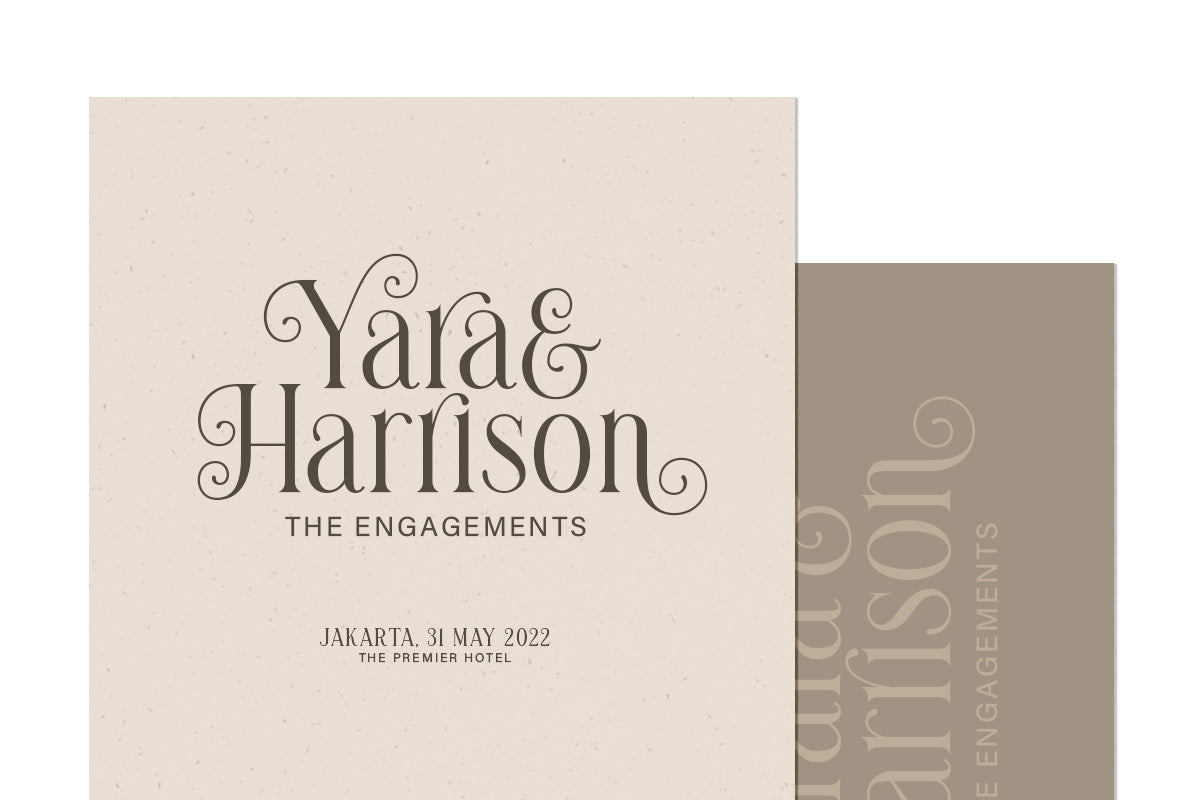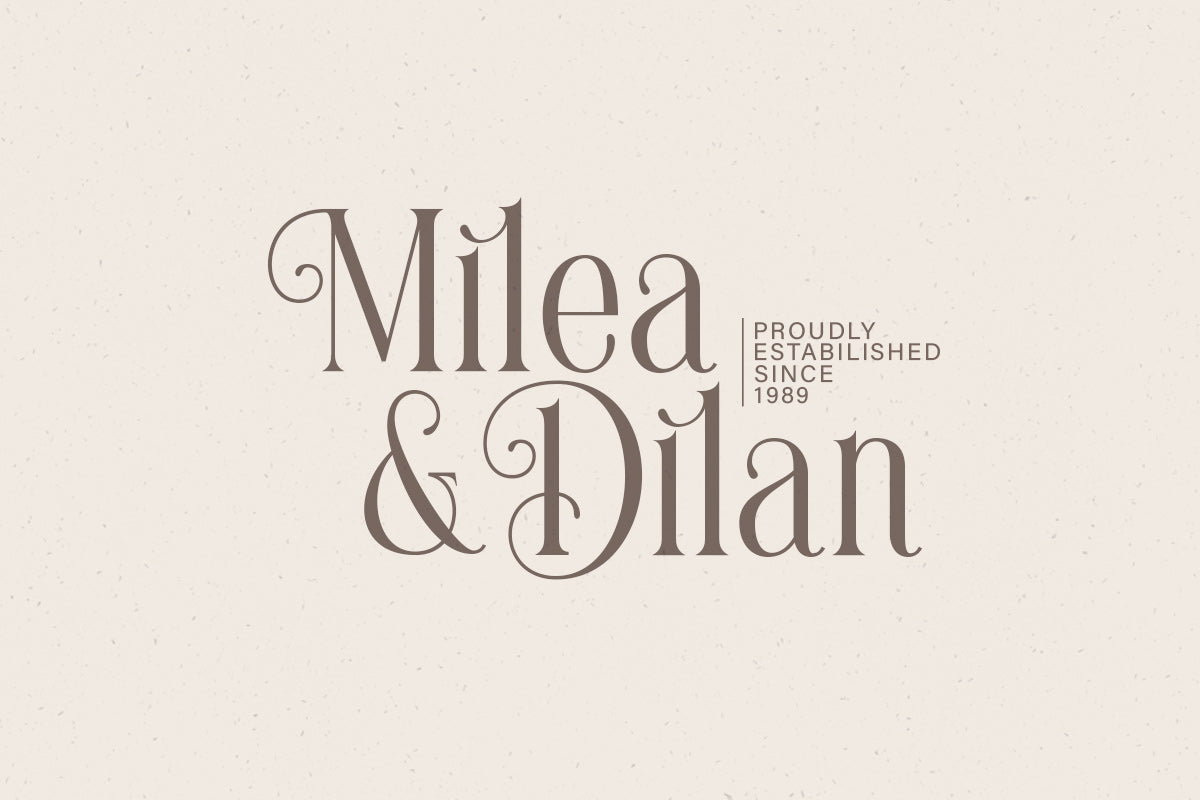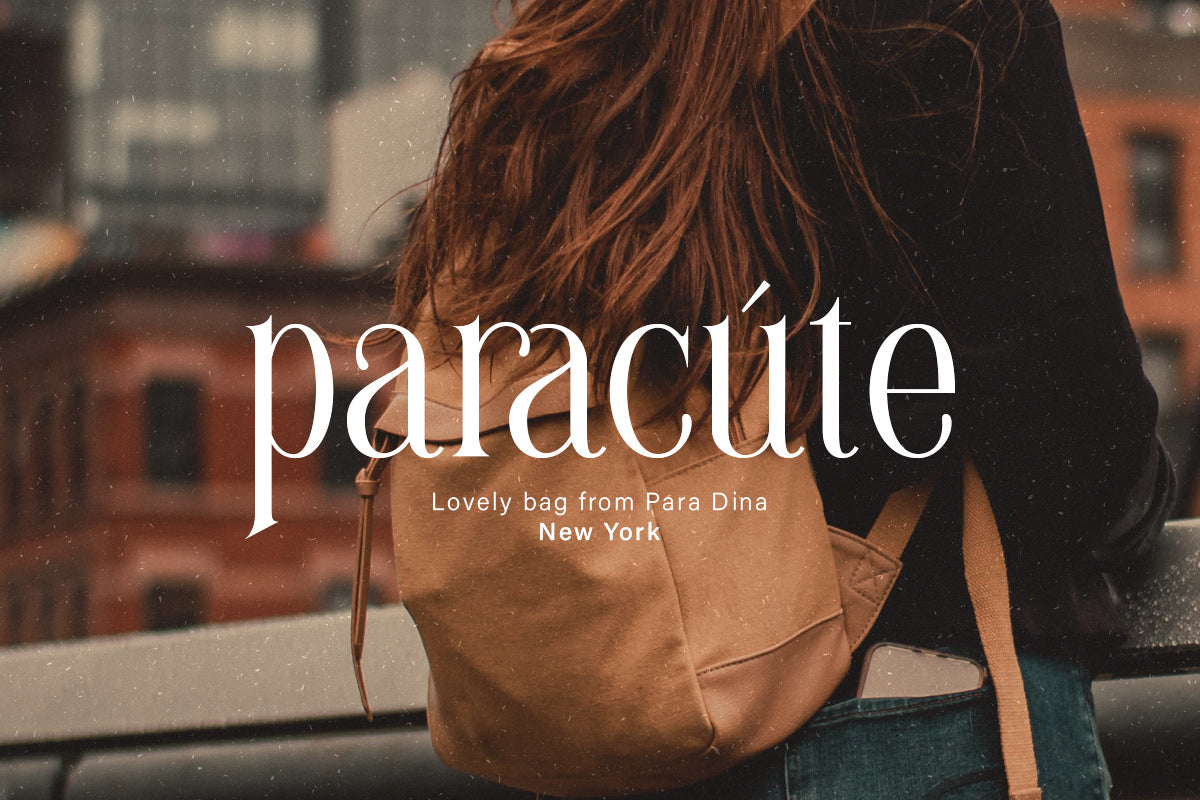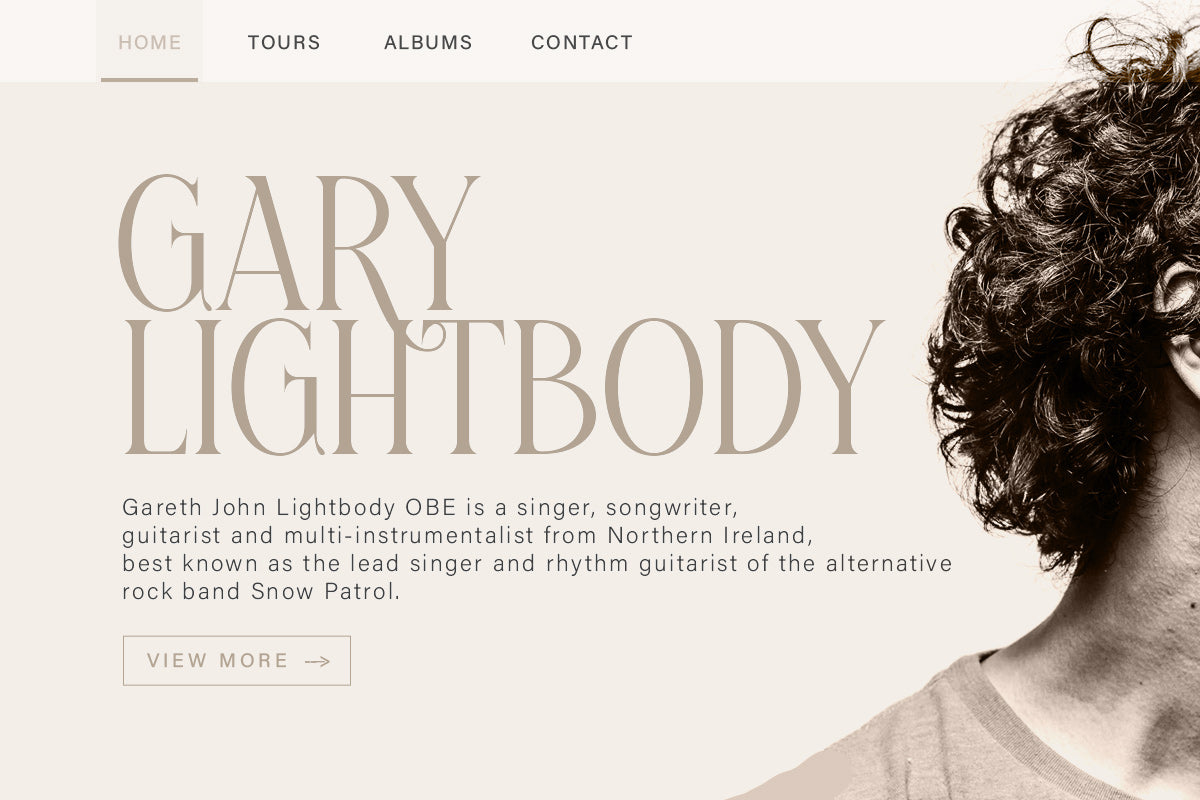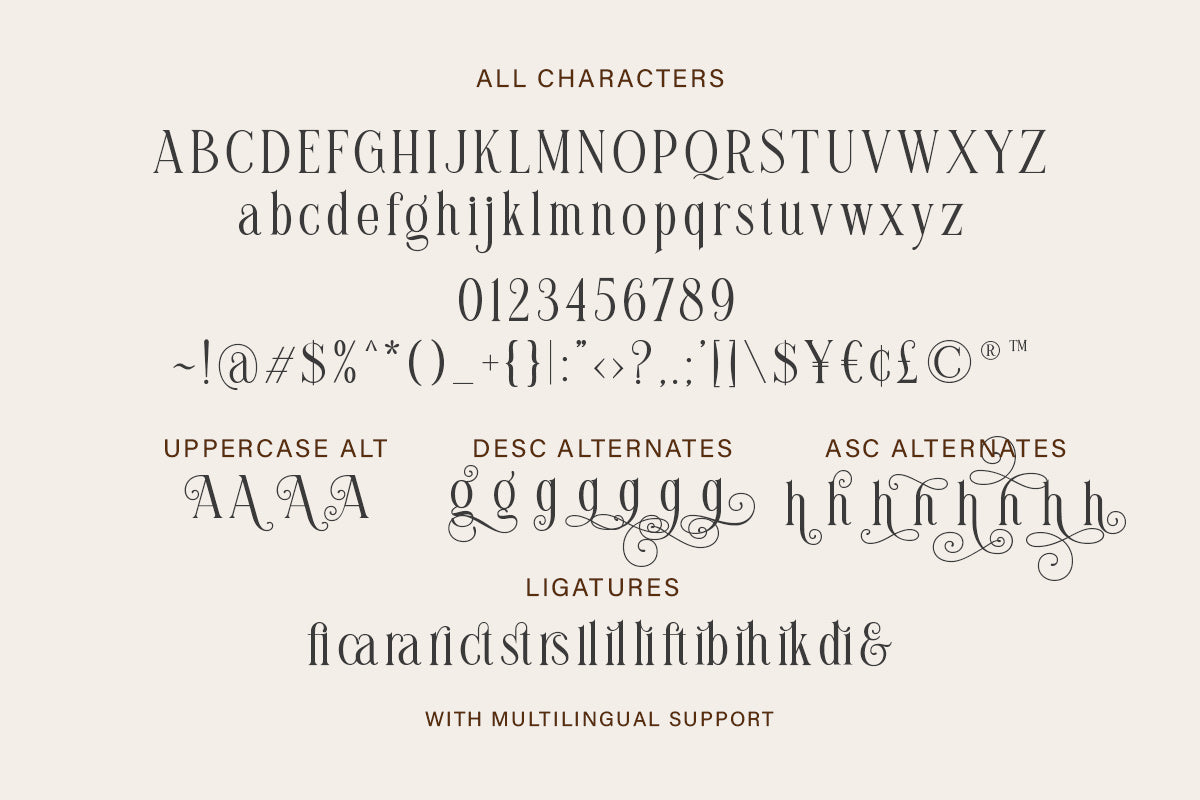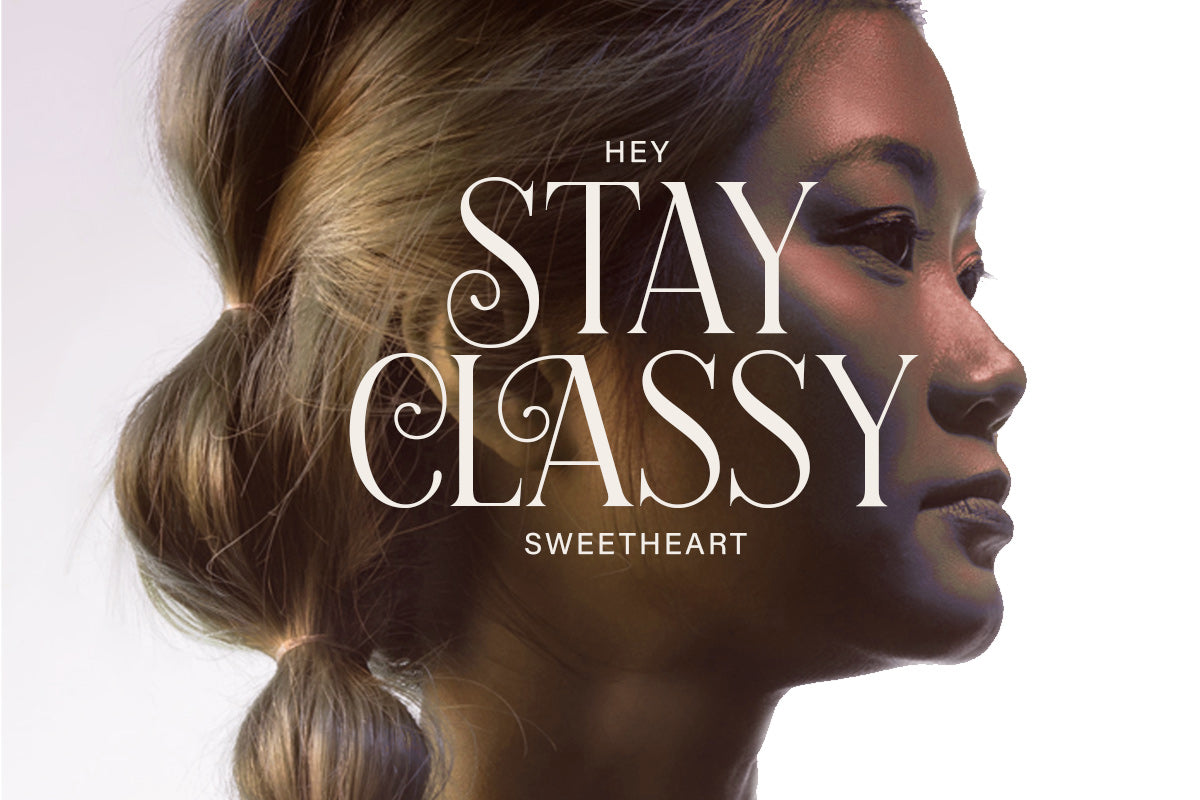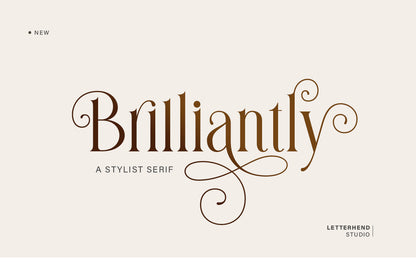
Brilliantly - A Stylish Serif
Introducing our newest typeface called Brilliantly - A Stylish Serif. This typeface has many alternates with swashes that can make your lettering / logotype become more interesting. The clean and neat of a serif combined with the swirl swashes makes this font one of a kind!
This font perfectly made to be applied especially in logo, and the other various formal forms such as invitations, labels, logos, magazines, books, greeting / wedding cards, packaging, fashion, make up, stationery, novels, labels or any type of advertising purpose.
Features :
uppercase & lowercase
numbers and punctuation
multilingual
ligatures
alternates
swashes